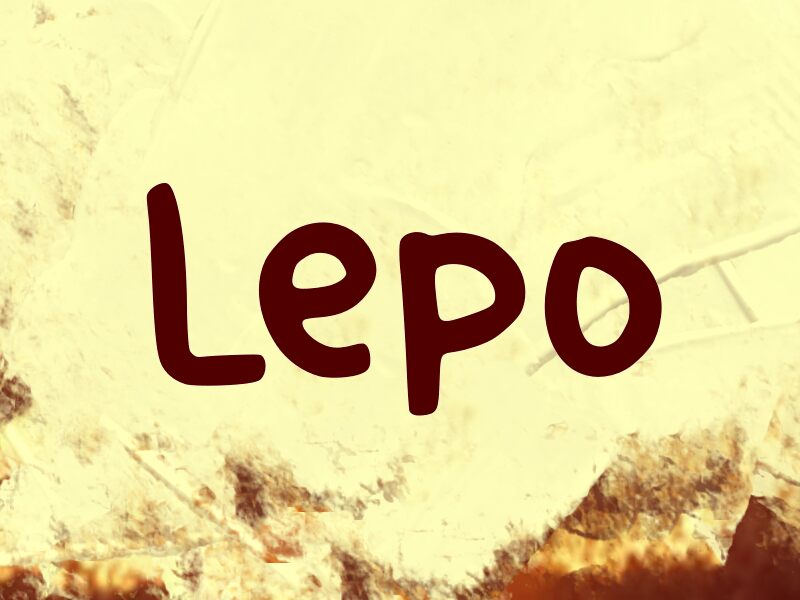
L Lepo font by wep is a free cartoon font brimming with character and originality. The font integrates a laid-back and friendly style with an accessible and catchy feel. All the elements present a pleasant grotesque quality that combines uniformity with oddball characteristics. A lively font ideal for designs that call for a smooth mix of informality with serious undertones. L Lepo achieves this through its organic seamless flow and lack of rigid interruptions. This approach creates a font truly for the modern time that can easily be a stand-alone option or paired with other simple fonts.
Without sacrificing its warm and friendly character, L Lepo makes for an incredible choice for branding projects and logo designs. With its unique and seemingly effortless approach, it can enhance t-shirt designs, badges, header applications, signage, social media pages, websites, and blogs. Use it for large display texts as well as branding, identities, greeting cards, banners, posters, book covers, and more.
Lepo is a stylish and modern free font that offers versatility for various design projects. With its clean lines and contemporary aesthetic, this font is perfect for creative applications, including branding, packaging, and digital content.